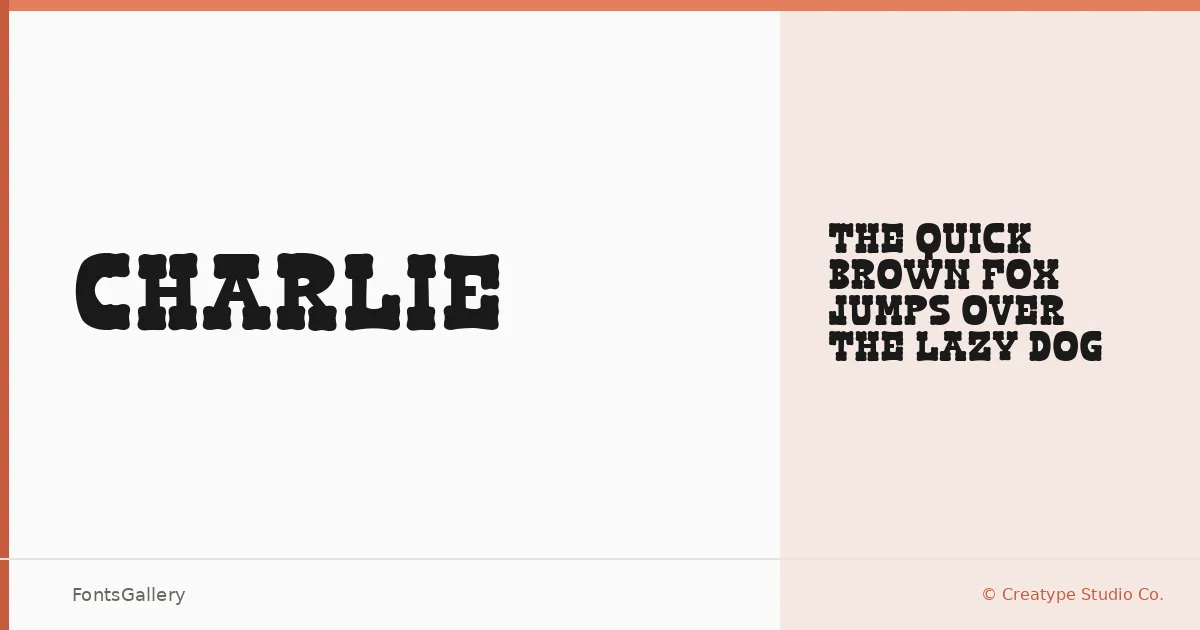
About Charlie Font
There is a deliberate heaviness to this slab serif — the kind of weight that commands attention before a single word is read. Designed by Rian Rahardi at Creatype Studio Co., Charlie arrives as a single Regular cut built to carry the character of vintage craft traditions through a thoroughly considered set of letterforms with sturdy serifs and confident strokes.
The mood here is bold and rustic, leaning into a classic, vintage sensibility that feels worn-in without being careless. Every letter carries a solidity that suits display work — the serifs land with purpose, and the overall texture reads as something closer to hand-lettered signage than cold editorial type. Delivered as a TTF file with installable embedding permissions, it covers Latin script with partial language support, so worth checking your character set against any extended copy needs.
The face earns its place in branding, logo work, poster headlines, signage, and apparel graphics — anywhere a single word or short phrase needs to hold the frame on its own. For longer compositions or supporting text, it pairs well with Helvetica or Aileron when you want a clean neutral contrast, and with Ballmain, Batoshi, or Alexandria when you are staying inside a more expressive, characterful palette.